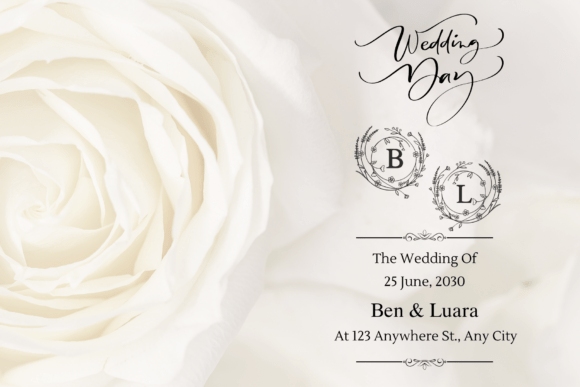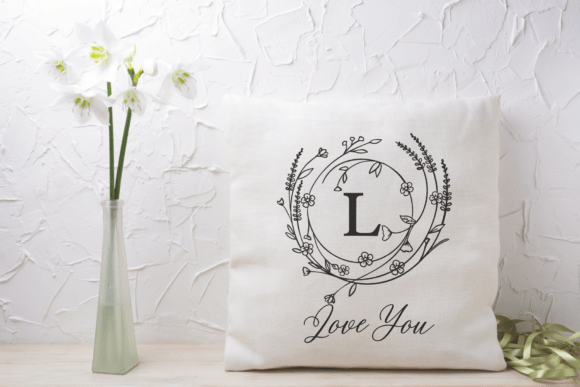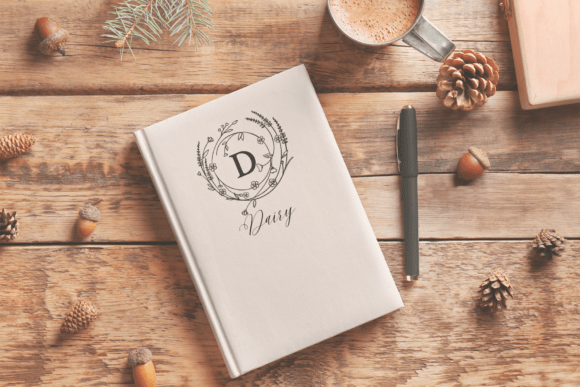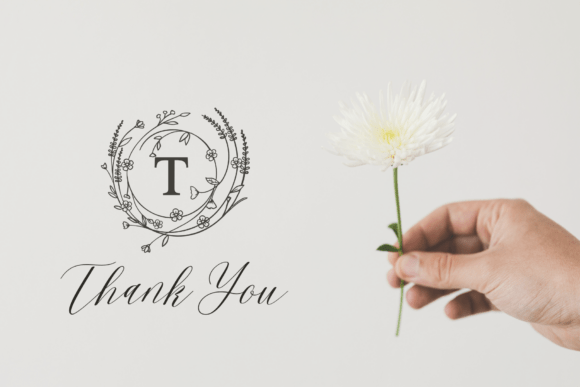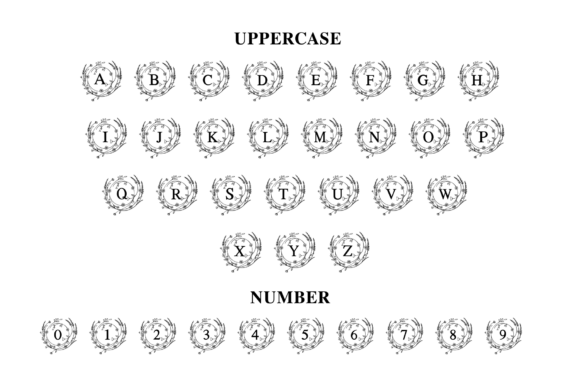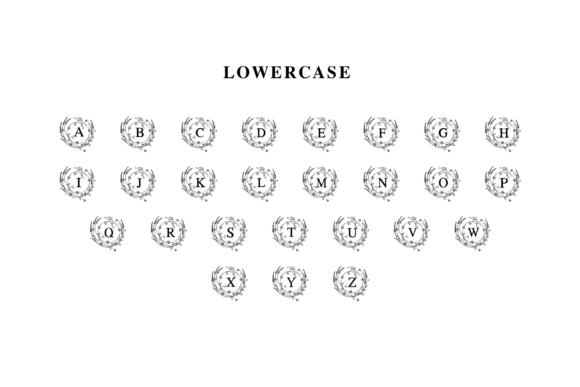
The Perfect Font for Petal-Perfect Occasions: A Deep Dive into Florist Monogram
I’ll never forget the time I was working on a wedding invitation project, and my client asked for a font that would make their special day feel like a fairytale. I scoured the internet, trying to find the perfect fit, until I stumbled upon Florist Monogram. This elegant font features decorative letters nestled inside a beautiful flower and leaf frame, making it an instant contender for the project. And, as I soon discovered, it’s not just limited to wedding invites – it’s perfect for any celebration that needs a touch of charm and sophistication!
So, what makes Florist Monogram so special? Let’s dive into the details:
- ✨ Elegant and Whimsical Design: The combination of decorative letters and floral frames is simply stunning.
- ✅ Perfect for Special Occasions: From wedding invitations to baby shower cards, this font adds a touch of sophistication.
- 🌼 Customizable: With OpenType features and glyphs, you can easily customize the font to fit your project’s needs.
But, like any font, it’s not without its quirks:
- 🤔 Limited Usage: While the font is perfect for special occasions, it may not be the best fit for more formal or corporate projects.
- ⚠️ Glyph Limitations: Some users have reported issues with certain glyphs not displaying correctly in certain programs.
The Story Behind Florist Monogram
While the true origins of Florist Monogram are shrouded in mystery, it’s said that the font was inspired by a vintage floral arrangement book. The designer, wanting to create a font that captured the essence of special occasions, poured their heart and soul into crafting this beautiful, elegant font. And the result? A stunning typeface that’s perfect for making any celebration feel extra special.
| Font Name | Florist Monogram Font |
| Author | Pui Art |
| What makes Florist Monogram so special? | Its unique combination of decorative letters and floral frames makes it perfect for special occasions. |
| Can I use Florist Monogram in my digital designs? | Absolutely! Florist Monogram works beautifully in both print and digital designs. |